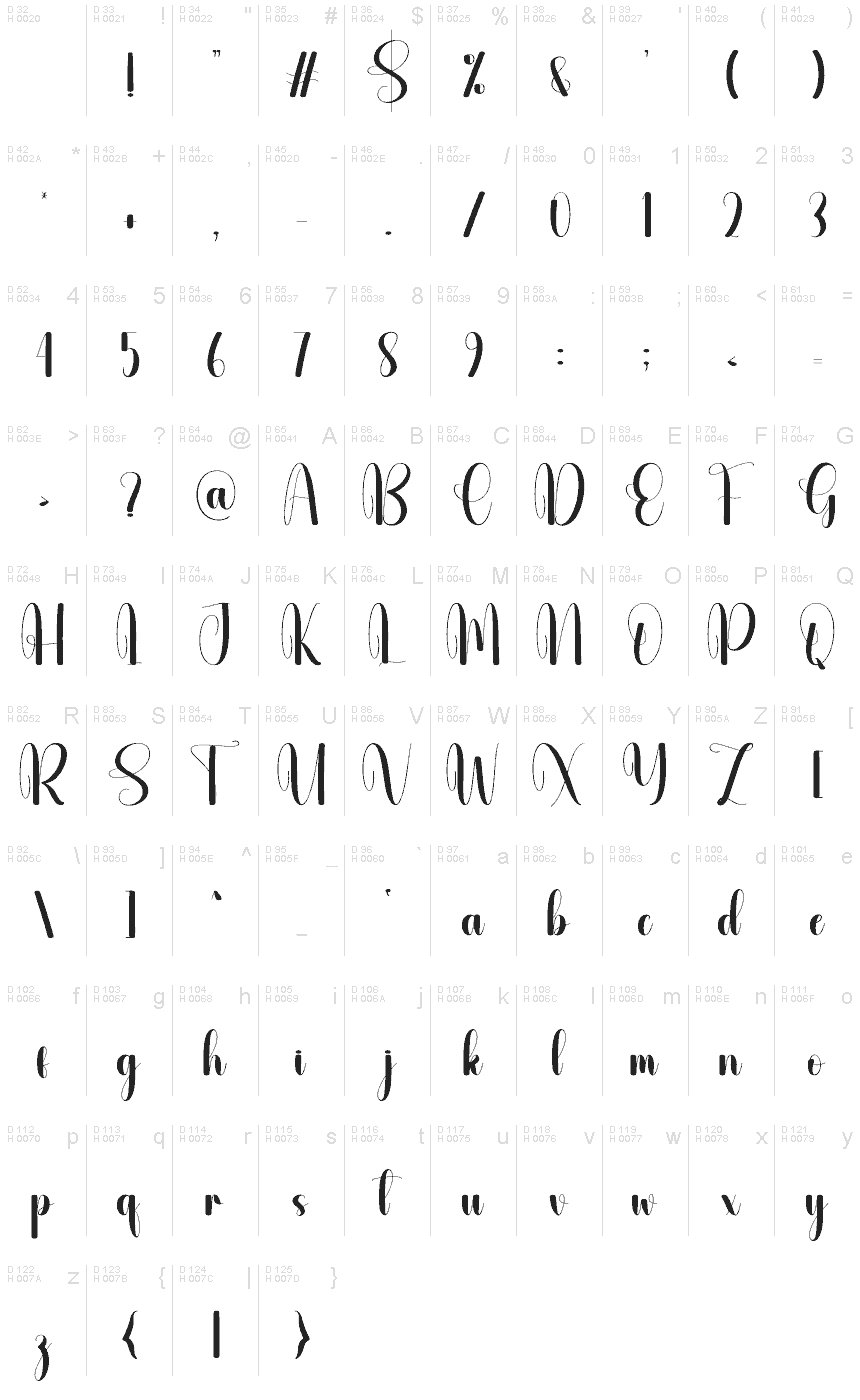
Sweatsuits
Sweatsuits font by Andi Moz is a free calligraphy font with elegant, sophisticated, and flowing letters. The decorative style gives the typeface an expressive appearance where each character is beautifully written to create modern script typography. This project comes inside one single weight that can be described as generally neither thin nor bold.
Use Sweatsuits font in graphic designs that need an elegance upgrade. Ladies-styled magazine covers and articles, high-quality logos for jewelry brands, invitations for special events and weddings, gift card lettering, website headers and titles, video intros/outros.